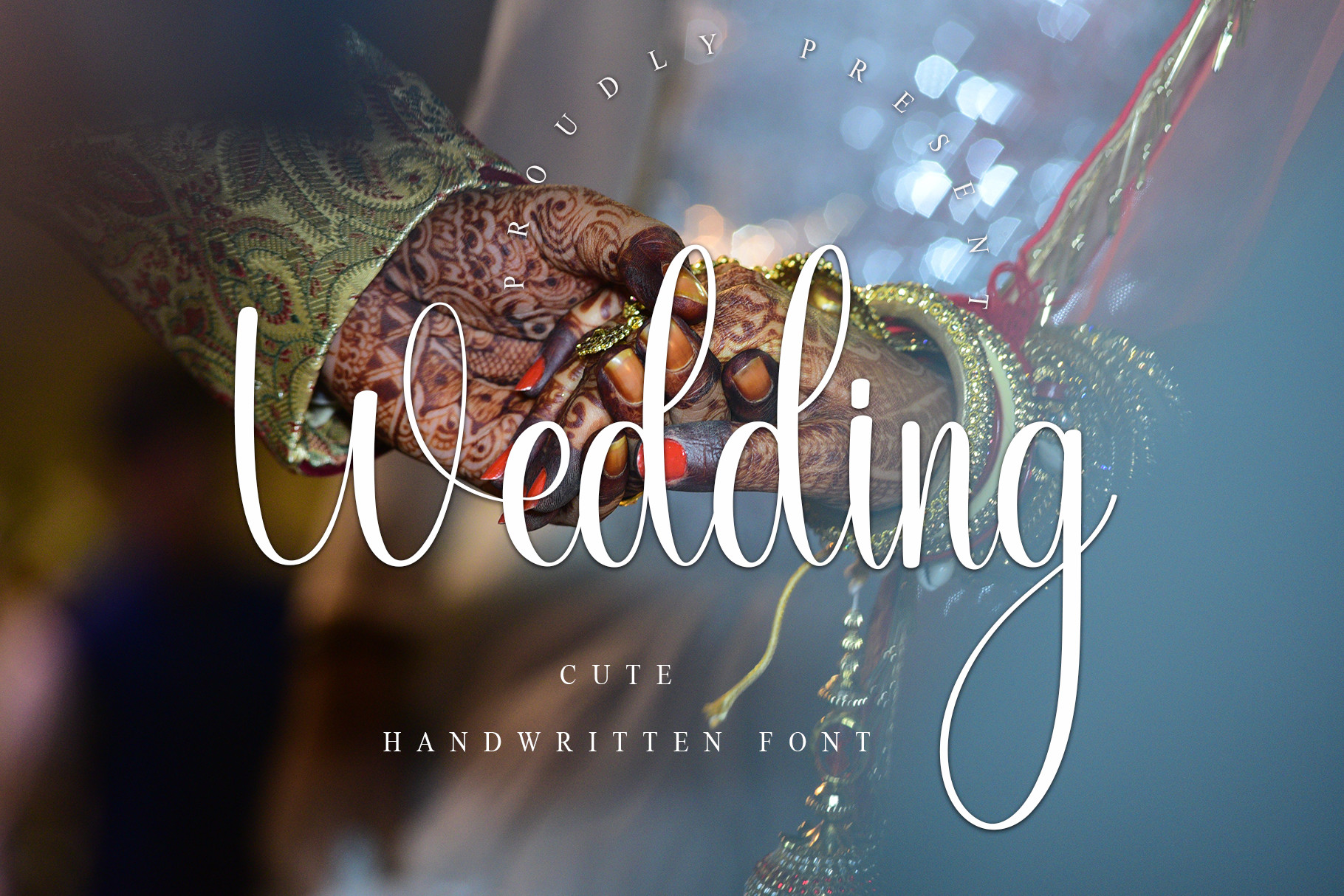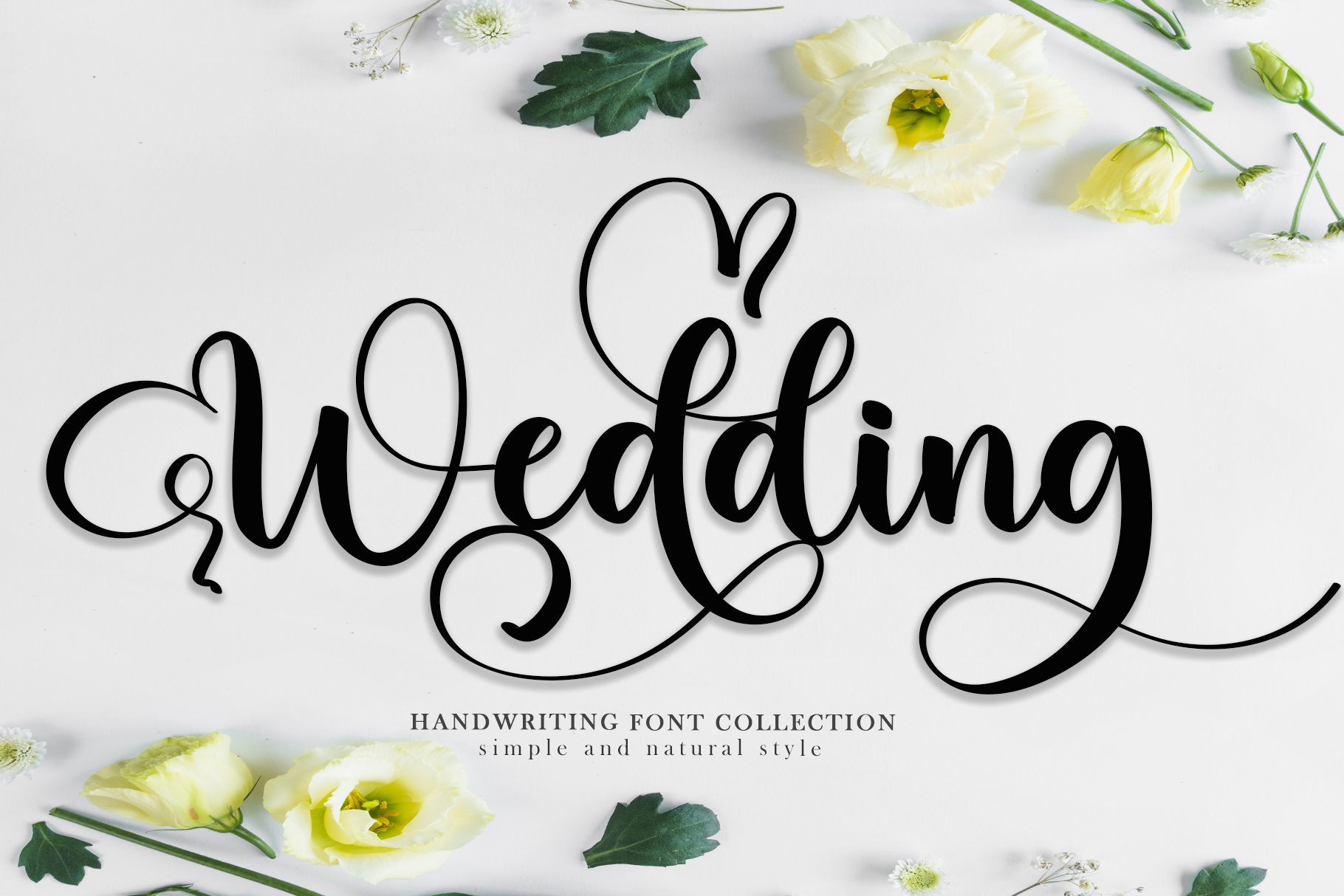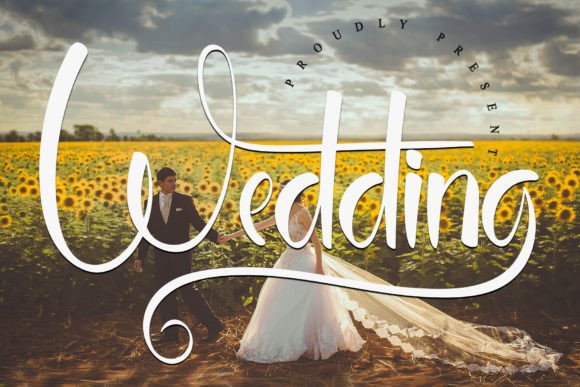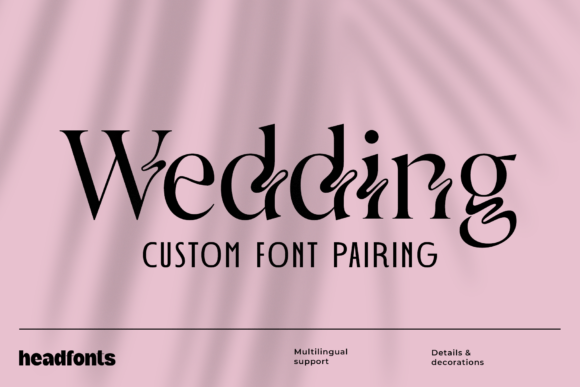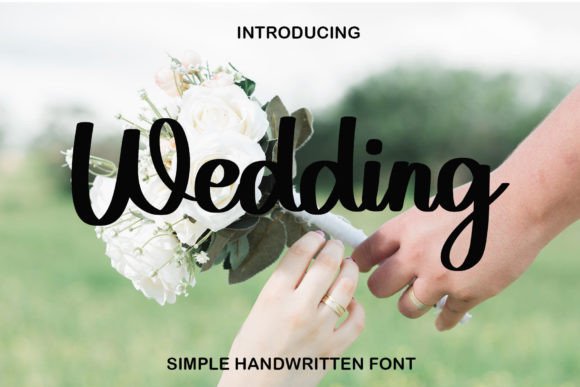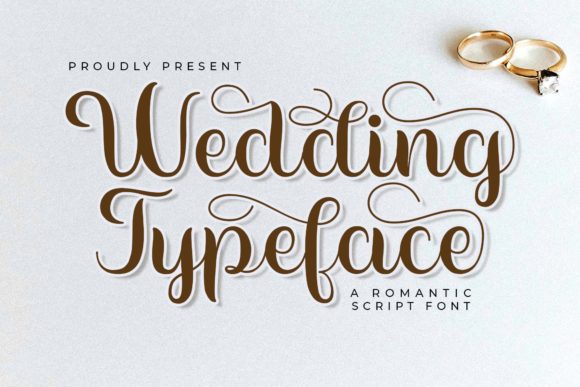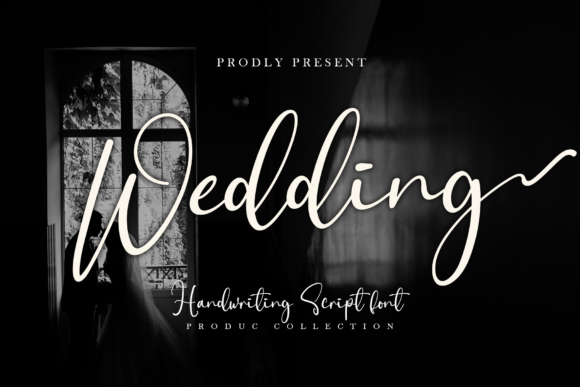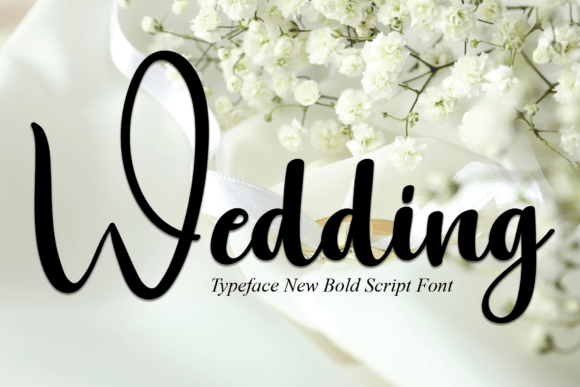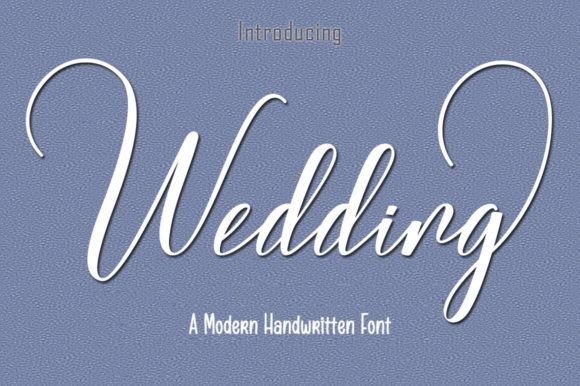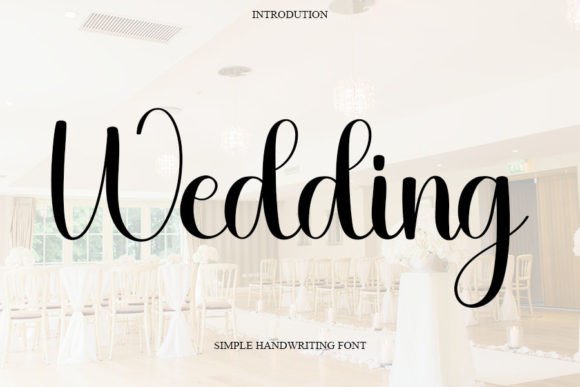
Discover 27 trending wedding fonts perfect for modern invitations, signage, and branding in 2026. From elegant scripts to refined serifs, these designer-recommended choices work beautifully for wedding creatives, with download links and usage tips included for easy project integration.
Introduction
Fonts define the tone of every wedding design, from whimsical place cards to luxurious invitations and elegant signage. As weddings continue to be an evergreen niche, using trending wedding fonts ensures your work stands out and meets the expectations of modern couples in 2026. Designers, bloggers, and wedding creatives are always seeking fresh inspiration for branding, menus, or digital content that echoes the latest industry aesthetics. The right font can transform a basic template into a keepsake, suggesting romance, sophistication, or playful celebration. With so many options available, curating a library of the latest Creative Fabrica wedding fonts gives you a creative edge and streamlines your workflow, from print designs to digital invitations and Etsy product listings. For even more expert advice on font pairing and design, check out our 29 Most Popular Stencil Fonts for Designers in 2026 that covers essential font usage for creatives.
27 Trending Wedding Fonts Designers Should Know
Wedding Font by PiPi Creative · Creative Fabrica
This modern script font by PiPi Creative balances elegance and readability, making it ideal for wedding invitations, RSVP cards, and ceremony programs. Its flowing curves and subtle flourishes evoke romance without overwhelming intricate layouts. Perfect for couples wanting a chic yet approachable vibe for both digital and print materials.
Wedding Font by Black line · Creative Fabrica
With its handwritten script style, this font by Black line is perfect for signage, table numbers, and seating charts. The slightly irregular strokes add a personal touch, mimicking hand-lettered calligraphy often associated with luxury invitations and rustic wedding designs. Ideal for bohemian or farmhouse-inspired celebrations.
Wedding Font by PiPi Creative · Creative Fabrica
This graceful script features clean upstrokes and a slightly whimsical baseline, lending itself beautifully to romantic wedding invitations and save-the-date cards. The style exudes a joyful yet refined mood, suitable for both formal events and more laid-back destination weddings.
Wedding Font by HeadFonts · Creative Fabrica
Offering an elegant serif approach, HeadFonts’ Wedding Font is perfect for branding, formal invitations, and wedding magazines. Its classic letterforms present a timeless aesthetic suitable for luxe venues and event branding that requires a polished, editorial look.
The Wedding Font Collection Bundle · Creative Fabrica
This bundle features a handpicked assortment of scripts and elegant serifs, giving designers a versatile toolkit for every part of the wedding stationery suite. From dynamic headers to delicate details, it’s ideal for those creating coordinated invitation sets, signage, and digital graphics for modern nuptials.
Wedding Font by andikastudio · Creative Fabrica
A romantic script with a soft, flowing texture, this font by andikastudio is perfect for digital invitations and delicate place cards. Its gentle swashes provide a dreamy touch, ideal for spring and summer wedding palettes or outdoor ceremonies.
Wedding Font by InFontree · Creative Fabrica
Featuring balanced strokes and a touch of modern flair, this font is well-suited for reception menus, personalized gifts, and favor tags. The unique structure stands out without taking over the whole design, making it a versatile choice across print and digital projects.
Wedding Font by asmunin78 · Creative Fabrica
This font captures a whimsical feeling with its playful loops, making it great for invitations to garden weddings or playful signage at rustic venues. The design is approachable and friendly, fitting well with informal gatherings and intimate parties.
Wedding Font by Doehantz Studio · Creative Fabrica
The refined, slender lines of this font lend sophistication to wedding invitation suites, announcement cards, and high-end event branding. It’s particularly effective for minimalist or monochrome wedding styles looking for an elegant font with impact.